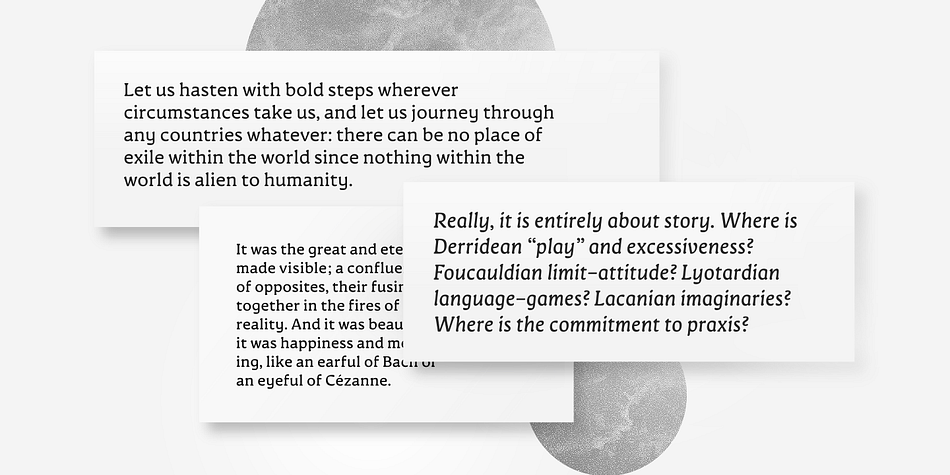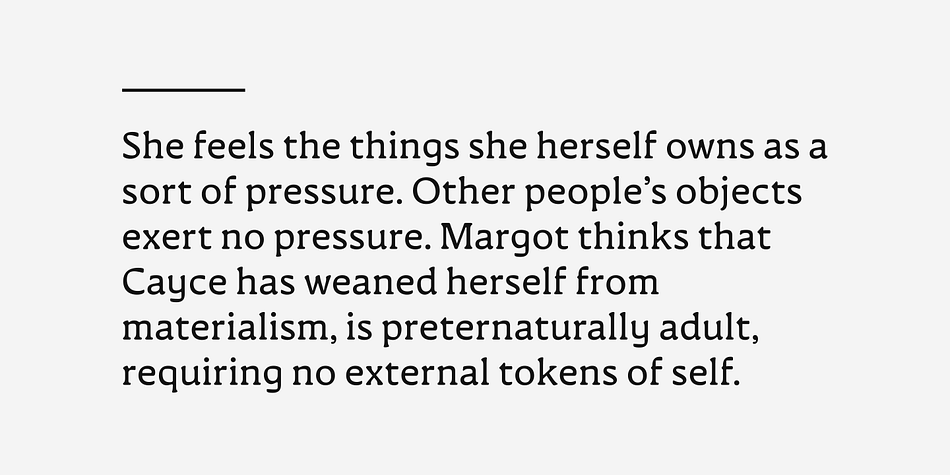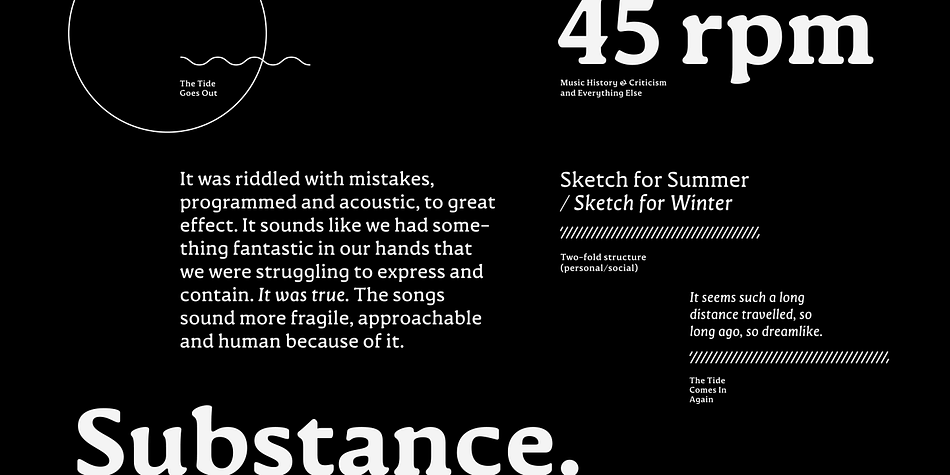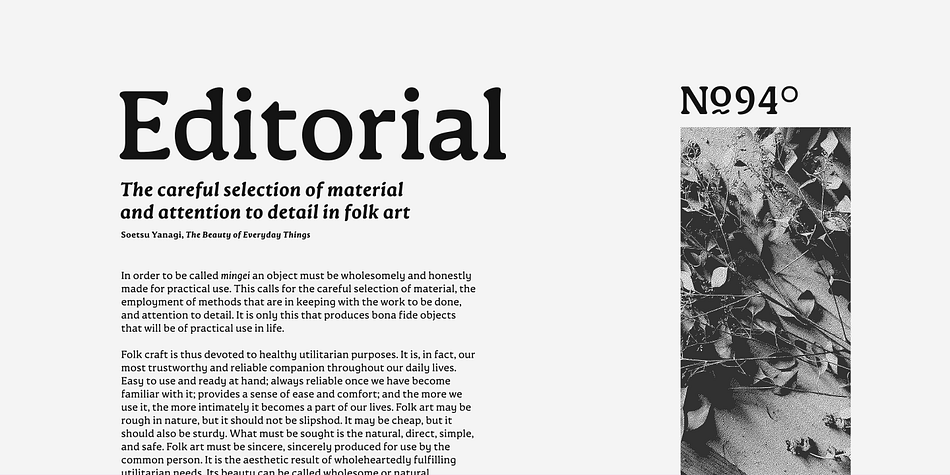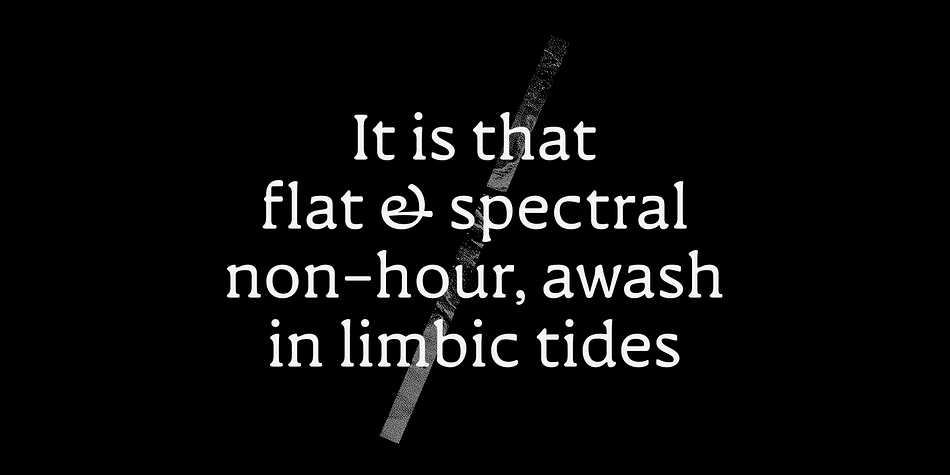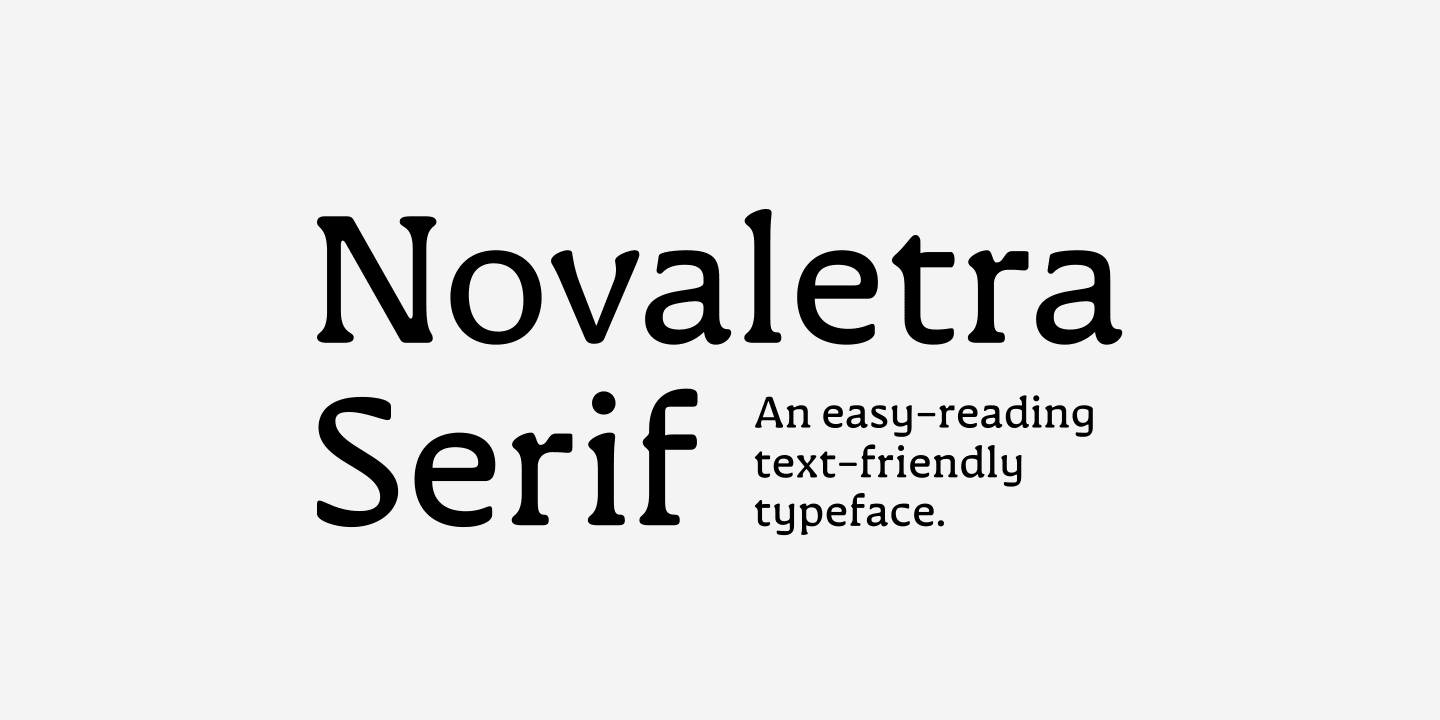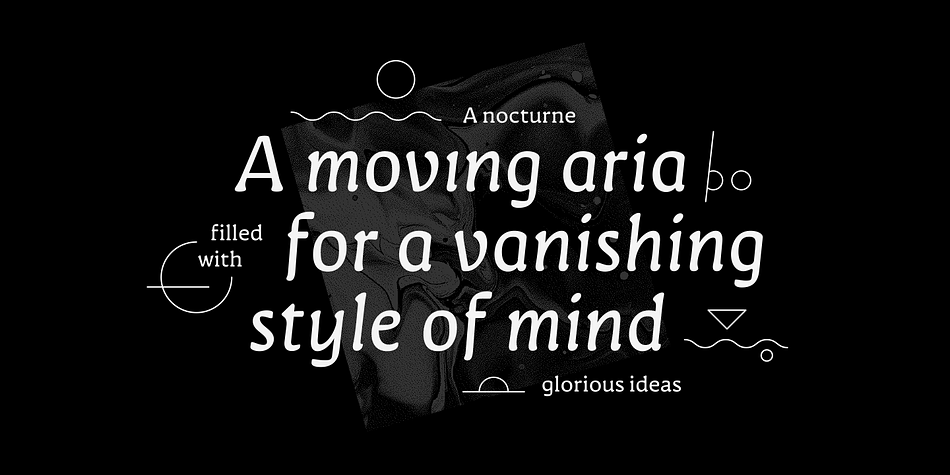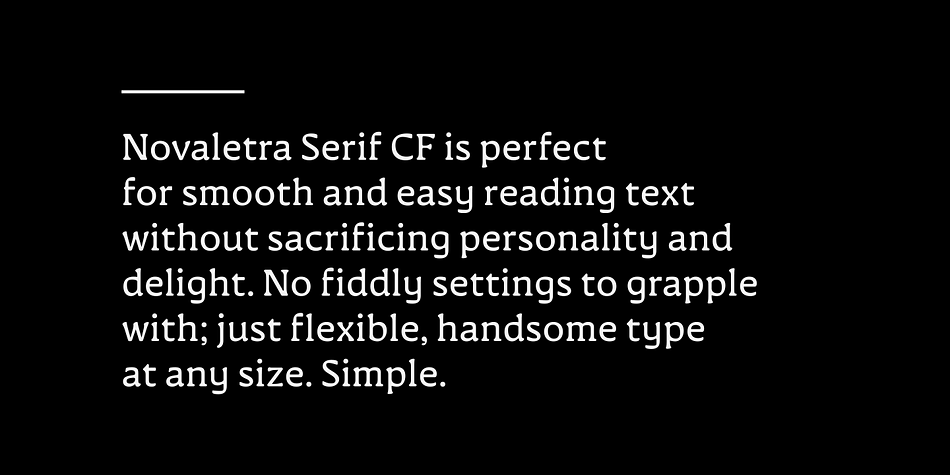
Novaletra Serif CF
Designed by Connary Fagen, Novaletra Serif CF is a retro and serif font family. This typeface has fourteen styles and was published by Connary Fagen Type Design.
Legibility. Flexibility. Personality. No need to pick two; Novaletra Serif CF has it all. Liven up body text, captions, and headlines with Novaletra’s smooth, low-contrast design set across seven weights with italics. Versatile and easy to read at any size, Novaletra includes useful features like wide language support across Latin and Cyrillic scripts, international currency symbols, fractions, tabular numbers, and more.